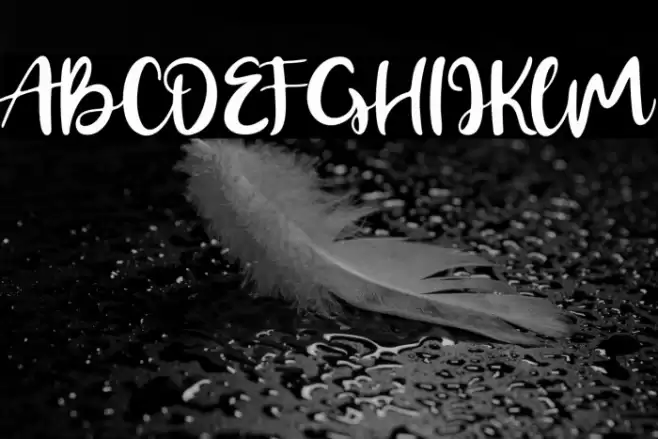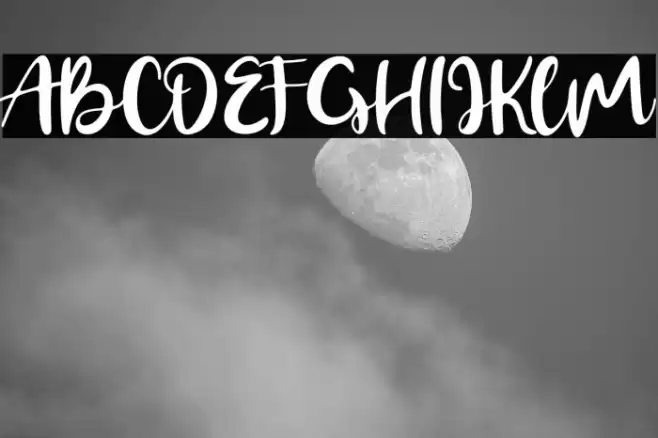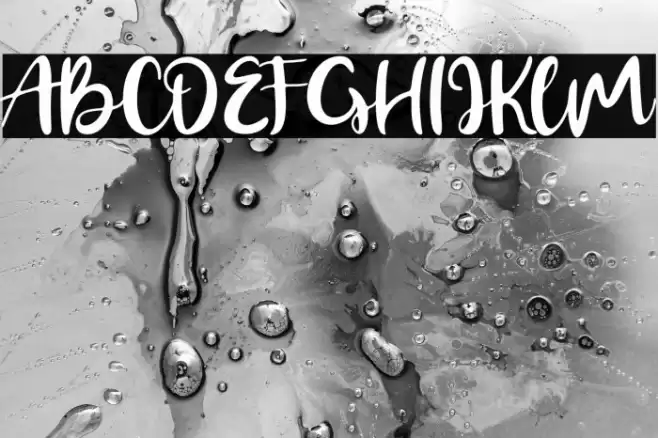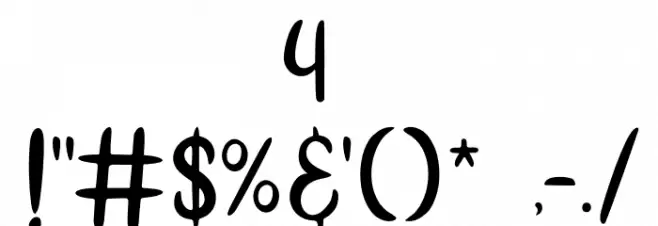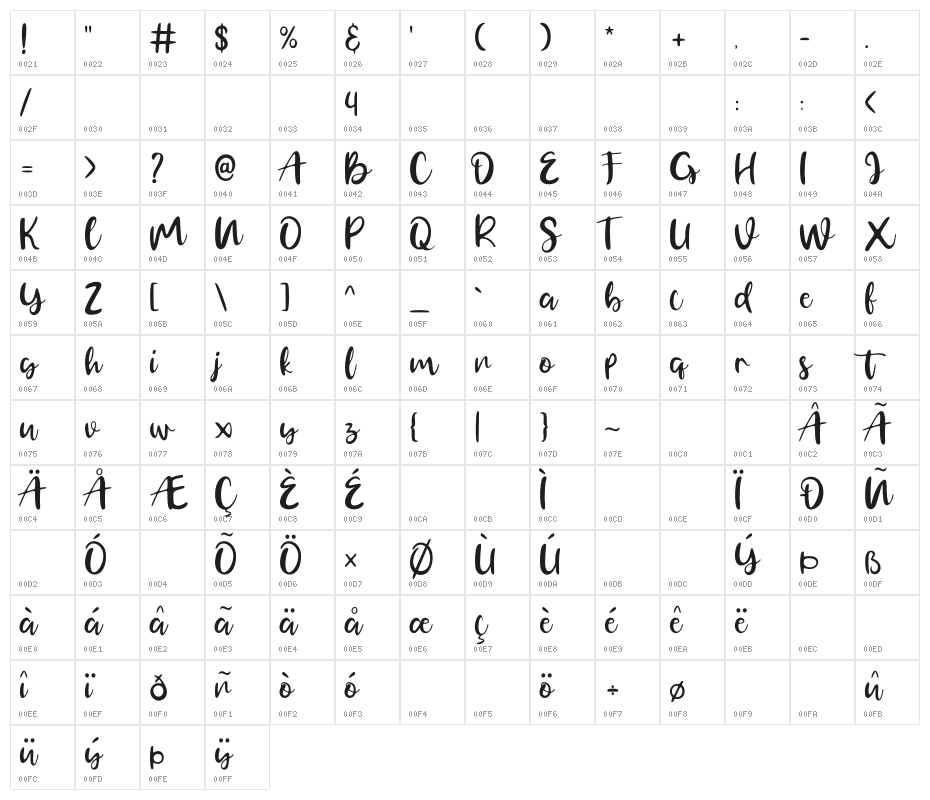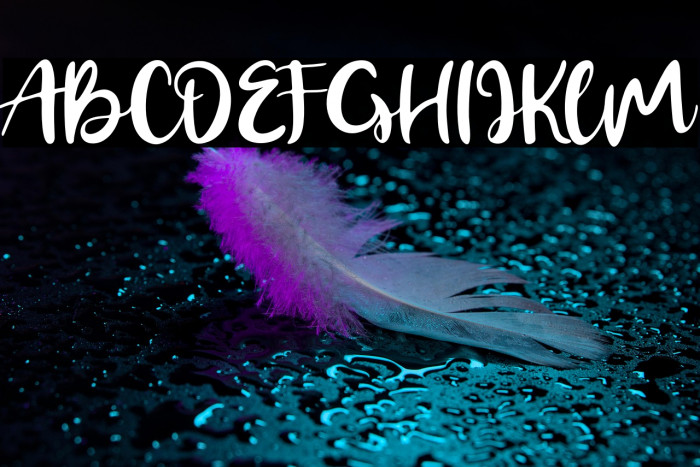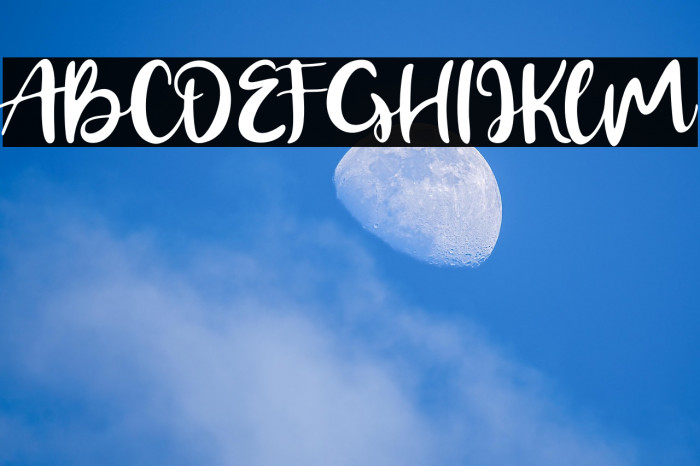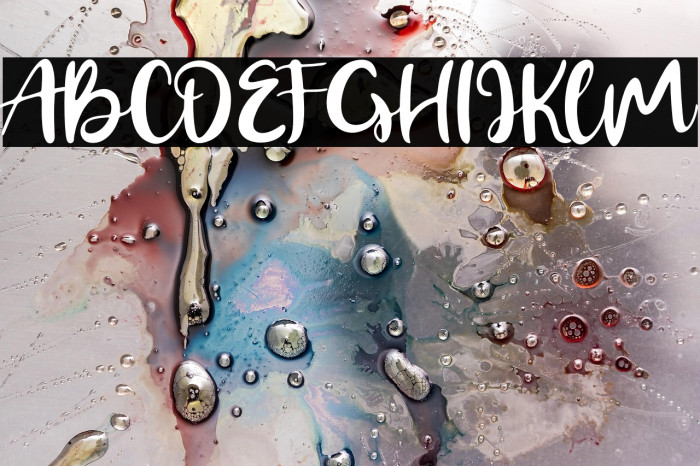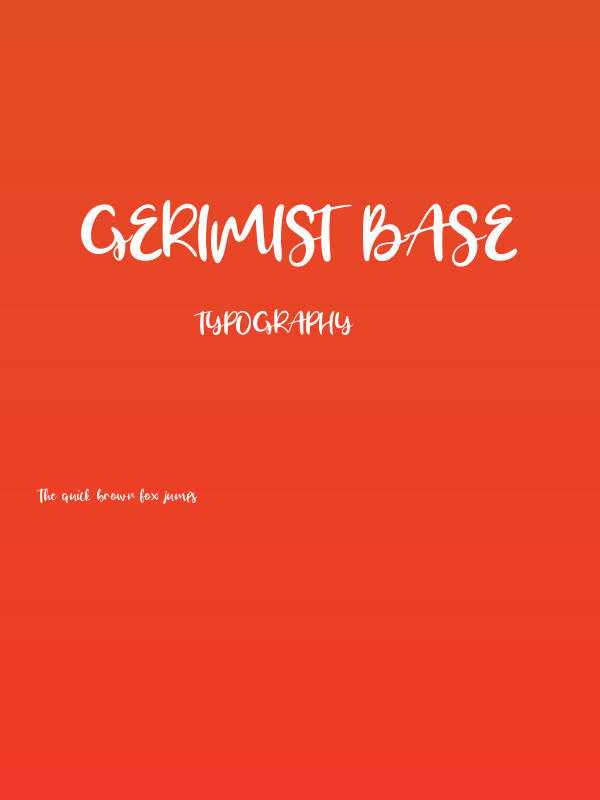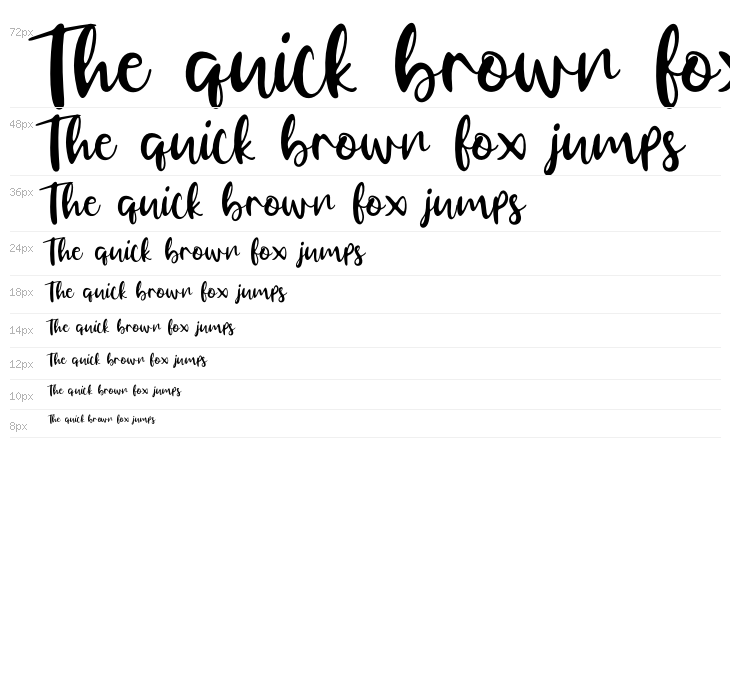
Gerimist Base Font
Gerimist Base Description
This font features a lively and expressive handwritten style, characterized by its flowing, cursive letterforms. The strokes are bold and confident, with a playful and artistic flair that adds a personal touch to any text. The uppercase letters are slightly more structured, while the lowercase letters exhibit a more relaxed and fluid appearance. The numbers and special characters maintain the same energetic style, ensuring consistency across all elements. This font is perfect for projects that require a personal, creative, and informal touch.
A bold, expressive handwritten font with a playful, cursive style from Uncategorized fonts.
- Font: Gerimist Base
- Proposed Projects: Ideal for greeting cards, invitations, personal branding, and creative projects.
- Use Case: Logos, Headlines, Creative projects